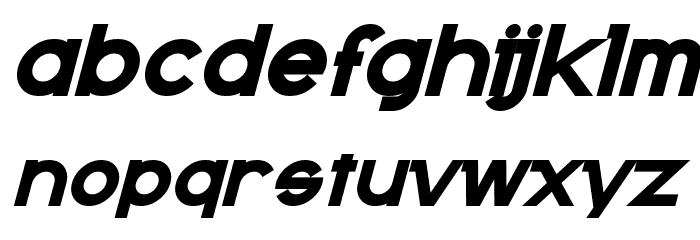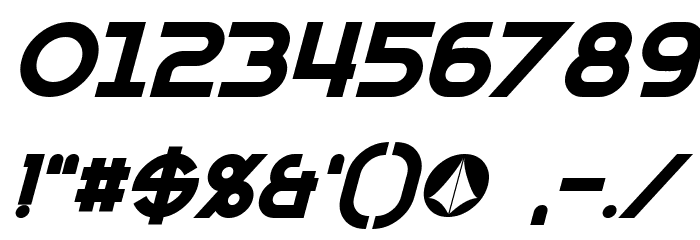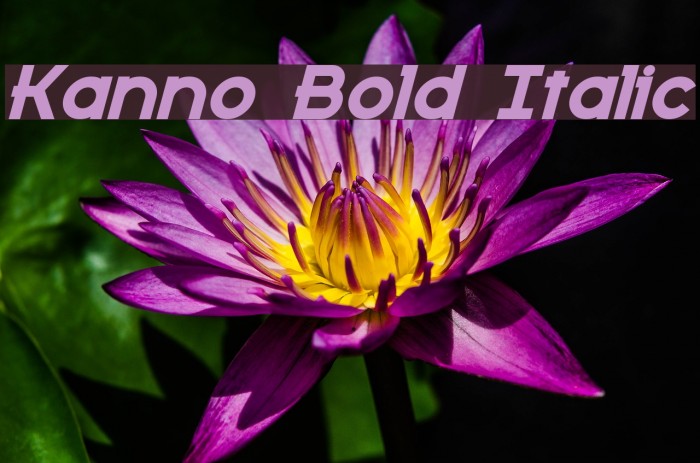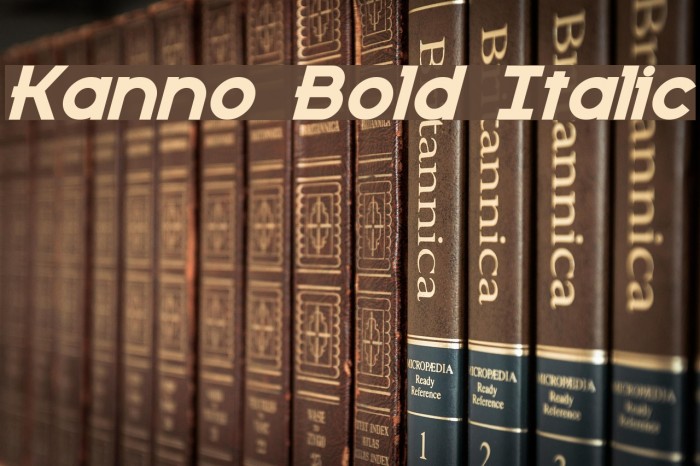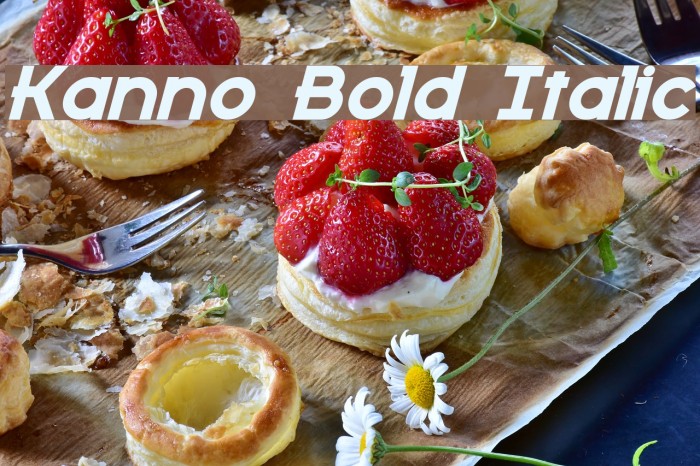
Kanno Bold Italic Font
This font exhibits a bold and italic style, characterized by its strong, dynamic slant and thick strokes. The uppercase and lowercase letters maintain a consistent weight, providing a sense of stability and power. The numerals are equally bold, ensuring readability and impact. Special characters are designed with the same boldness, making them stand out distinctly. The overall design is modern and sleek, suitable for making a statement in any design project.
Bold, italic font with a modern, dynamic slant and thick strokes.
- Proposed Projects: Ideal for branding, headlines, posters, and any project requiring a strong, impactful typeface.